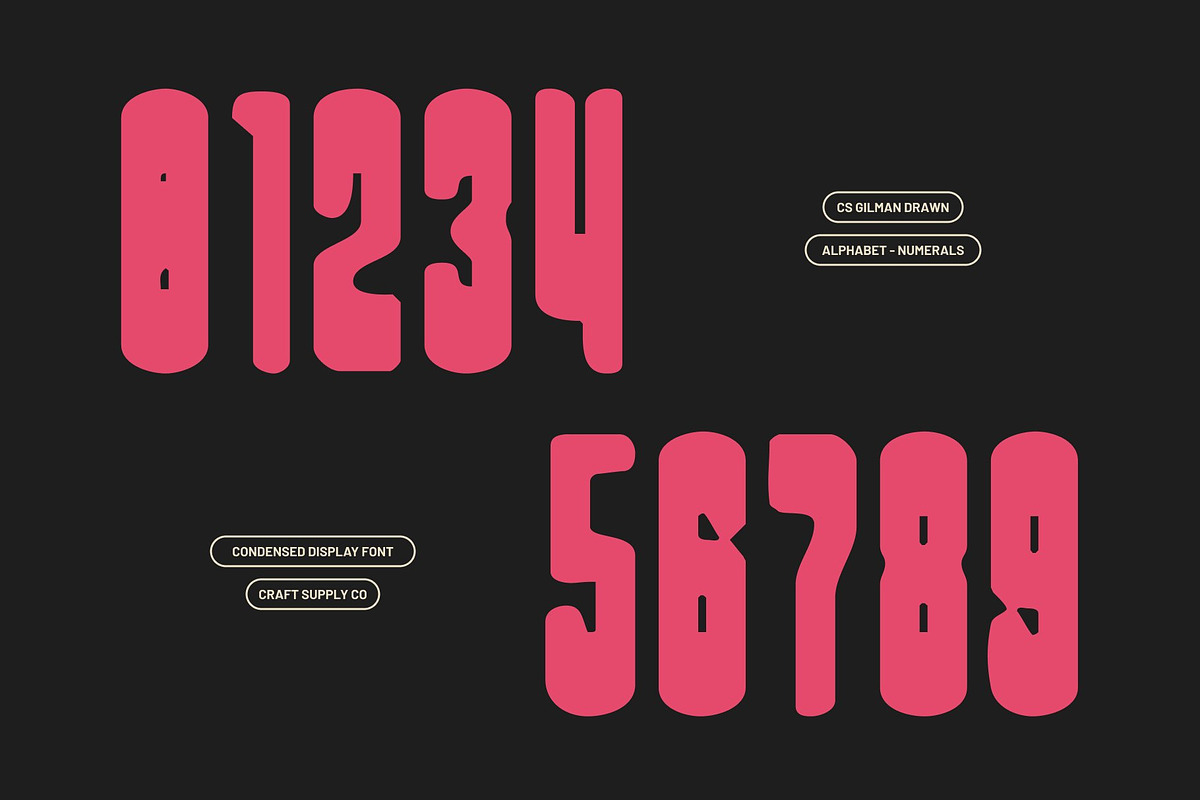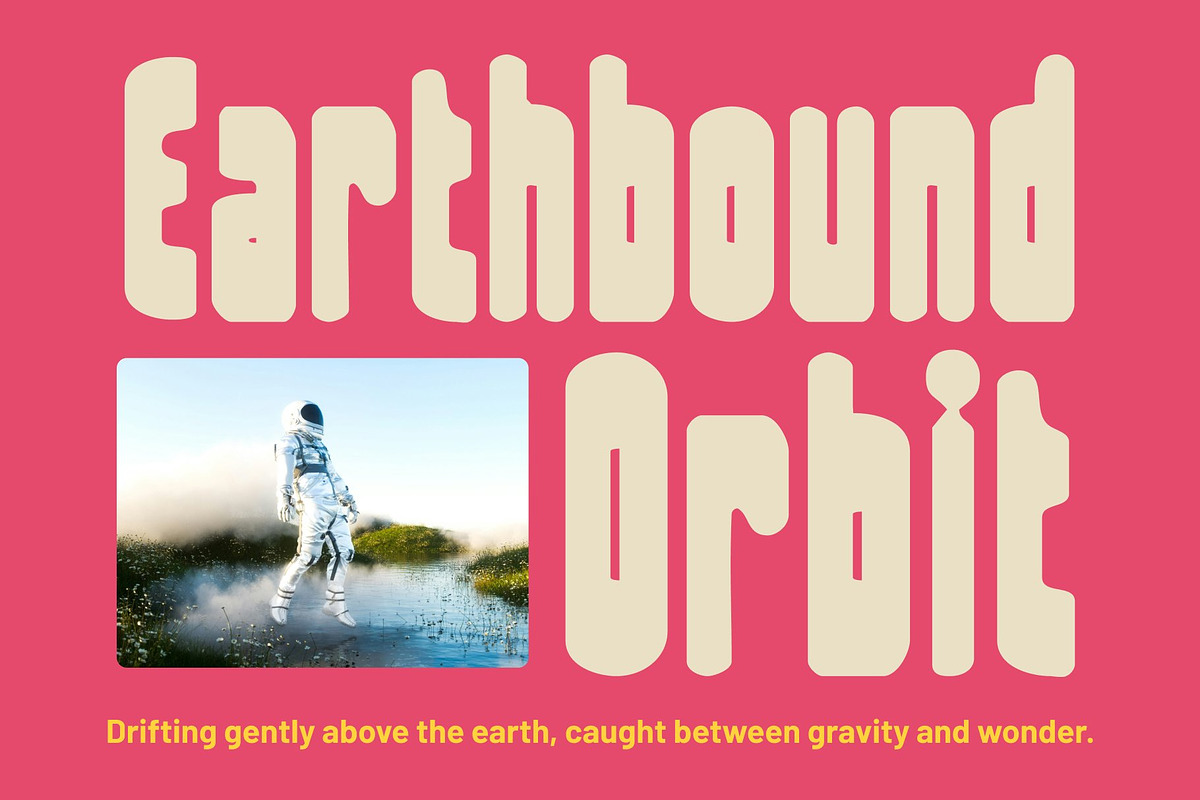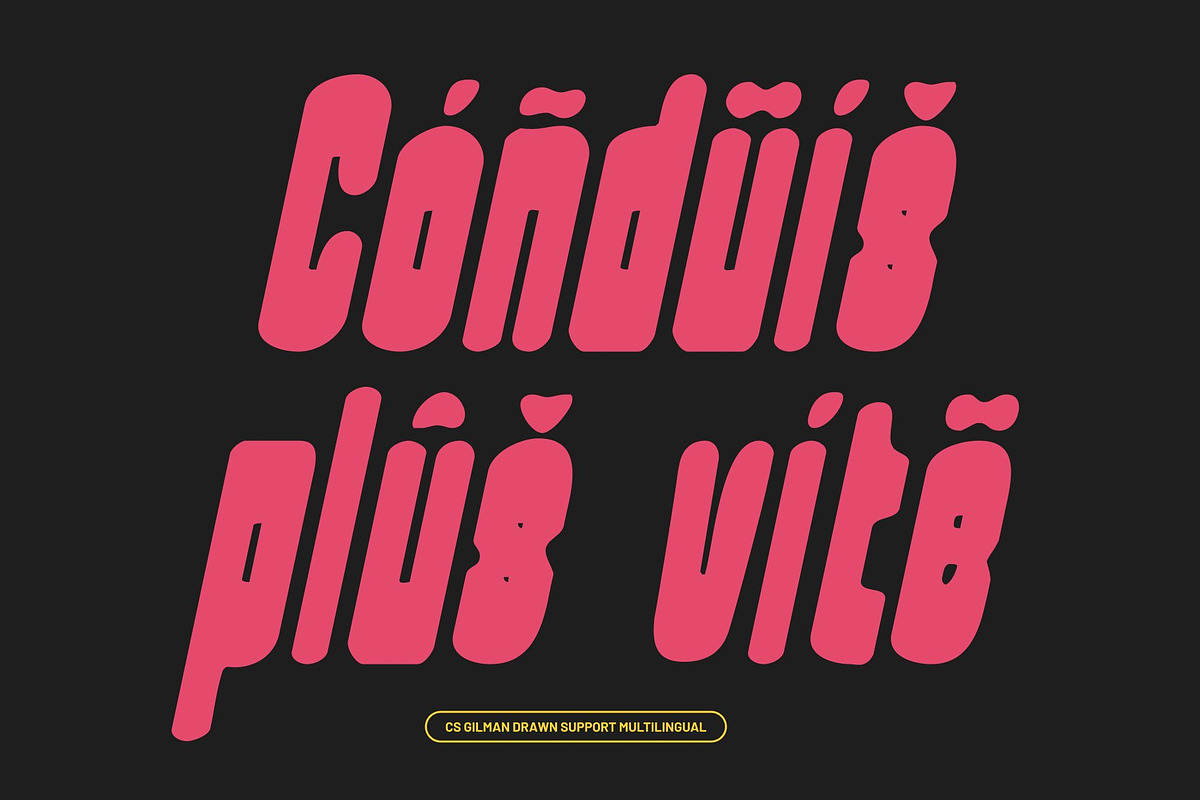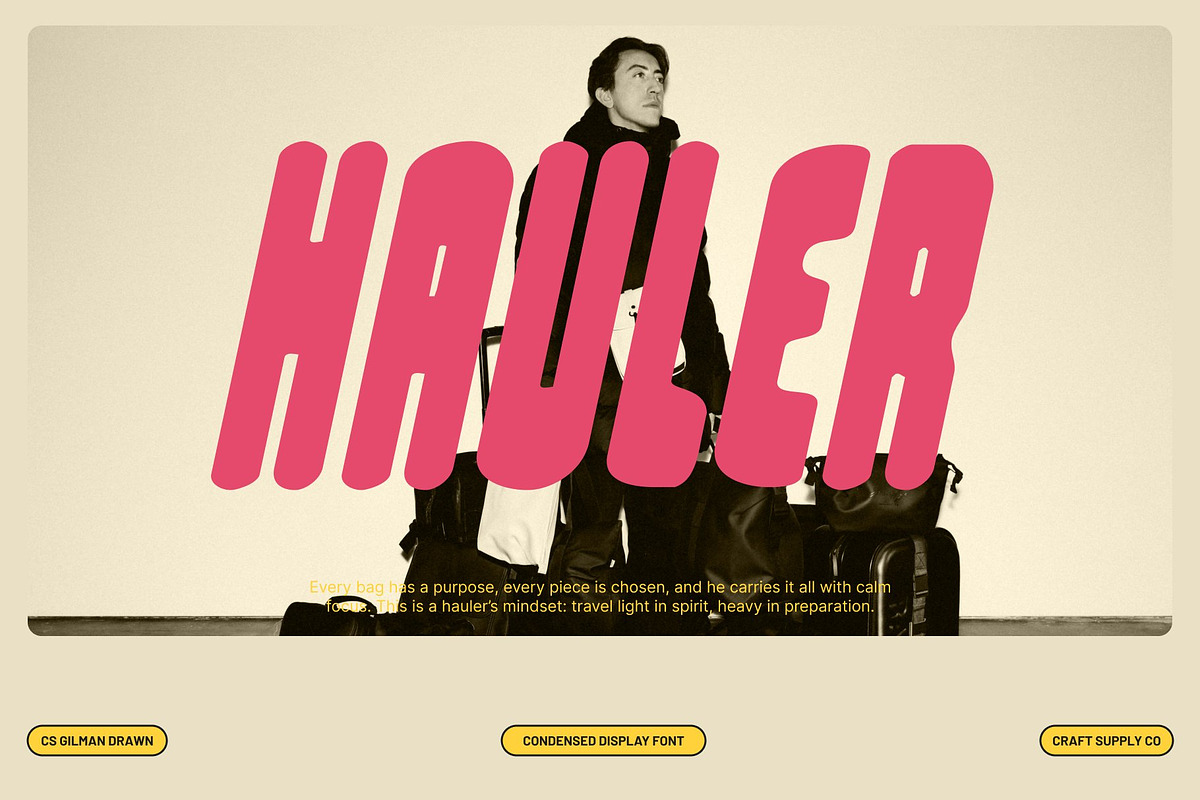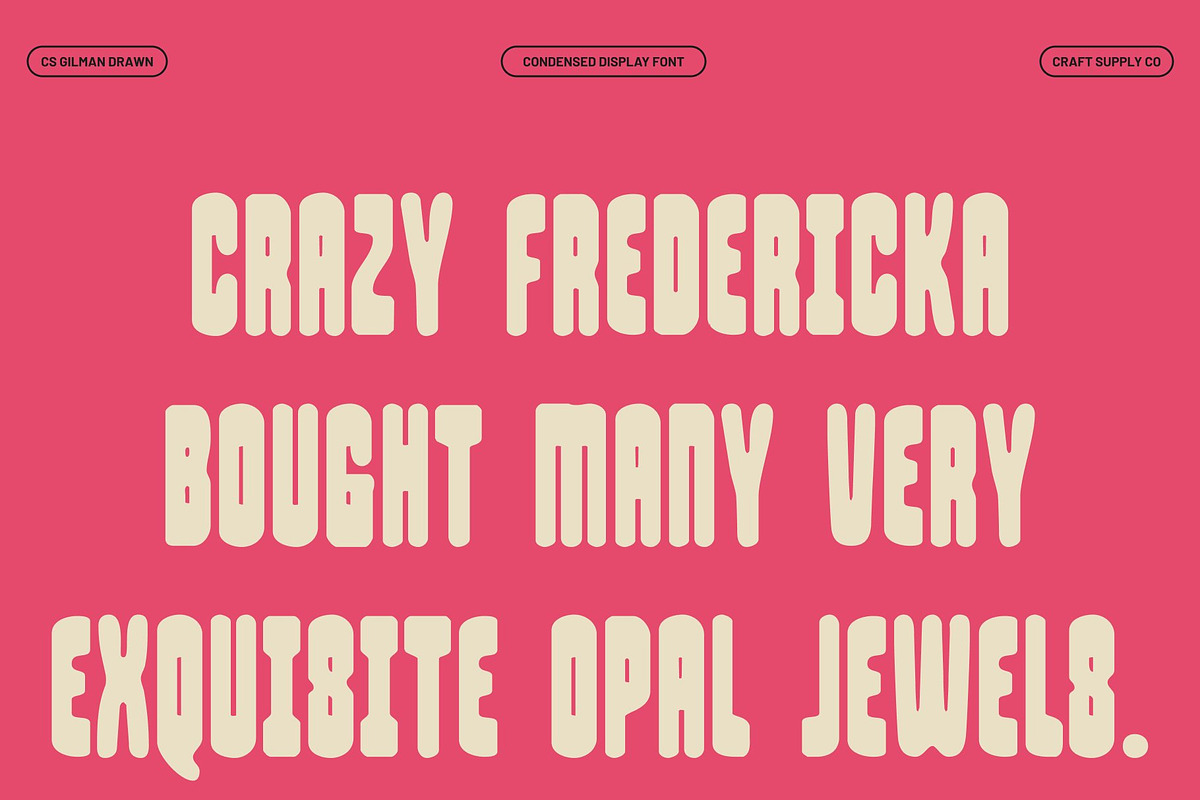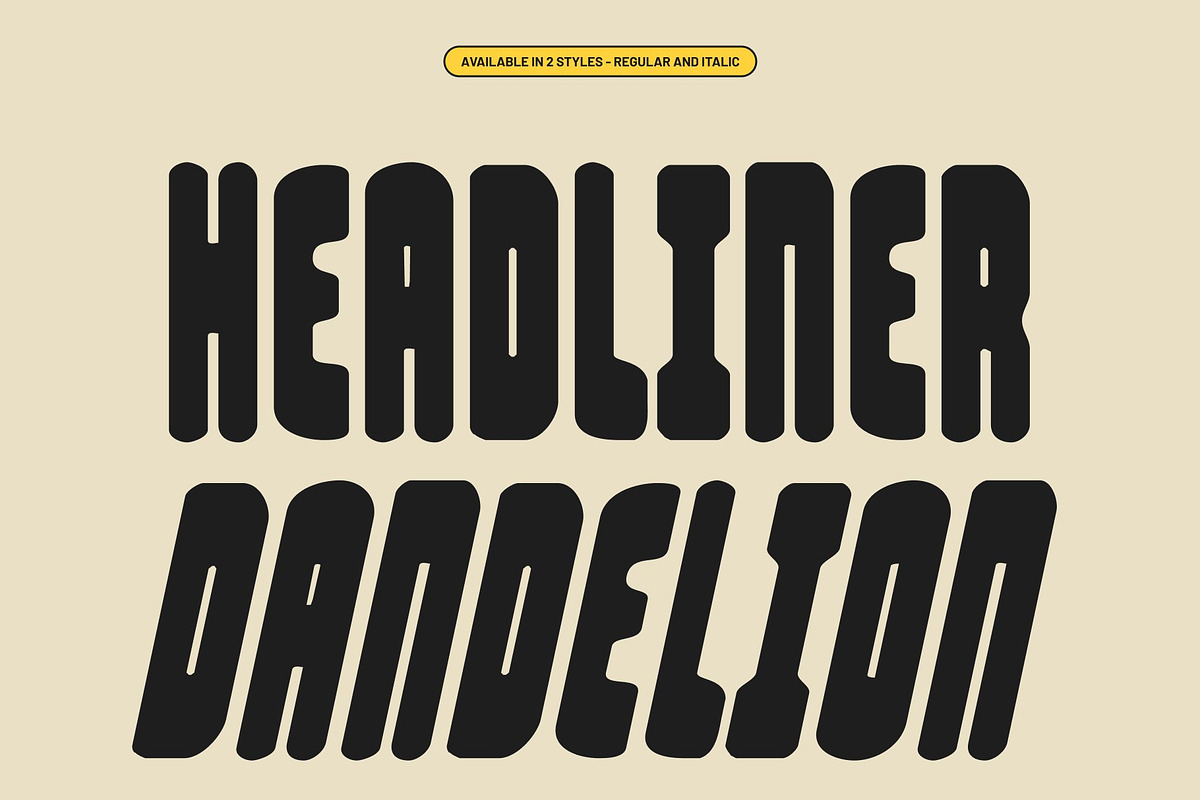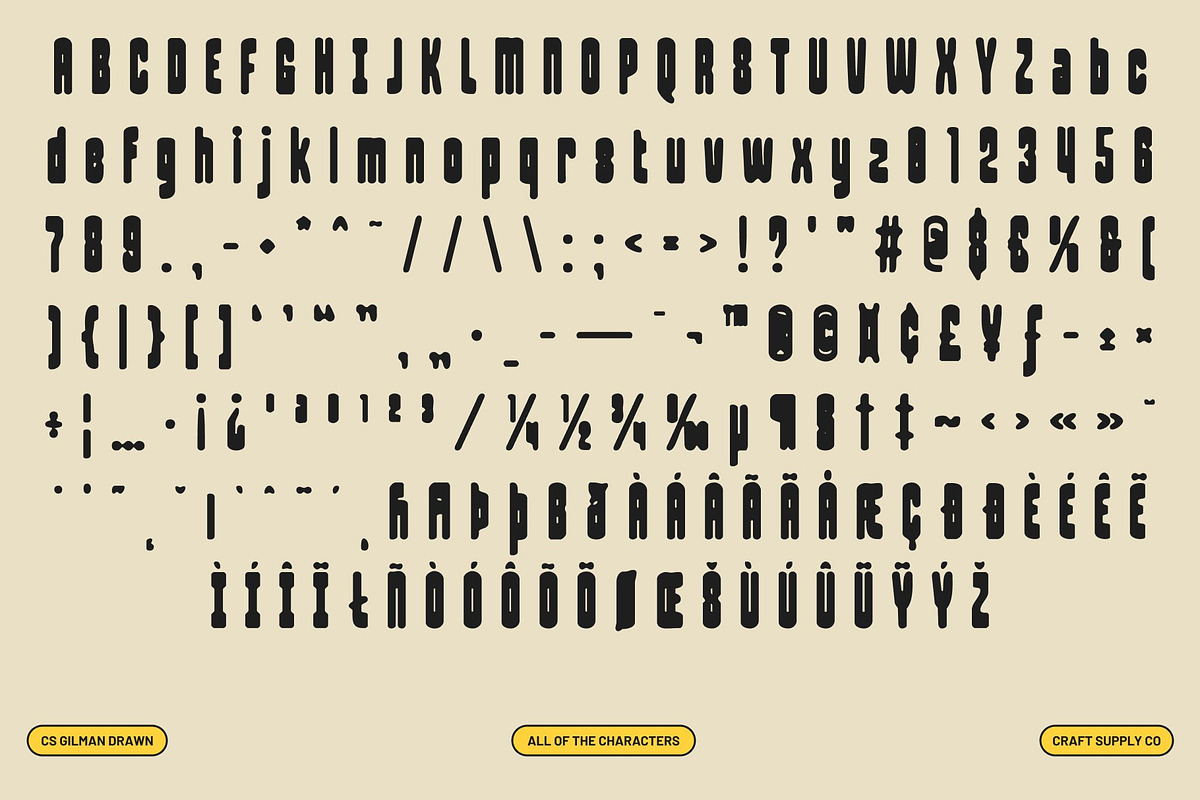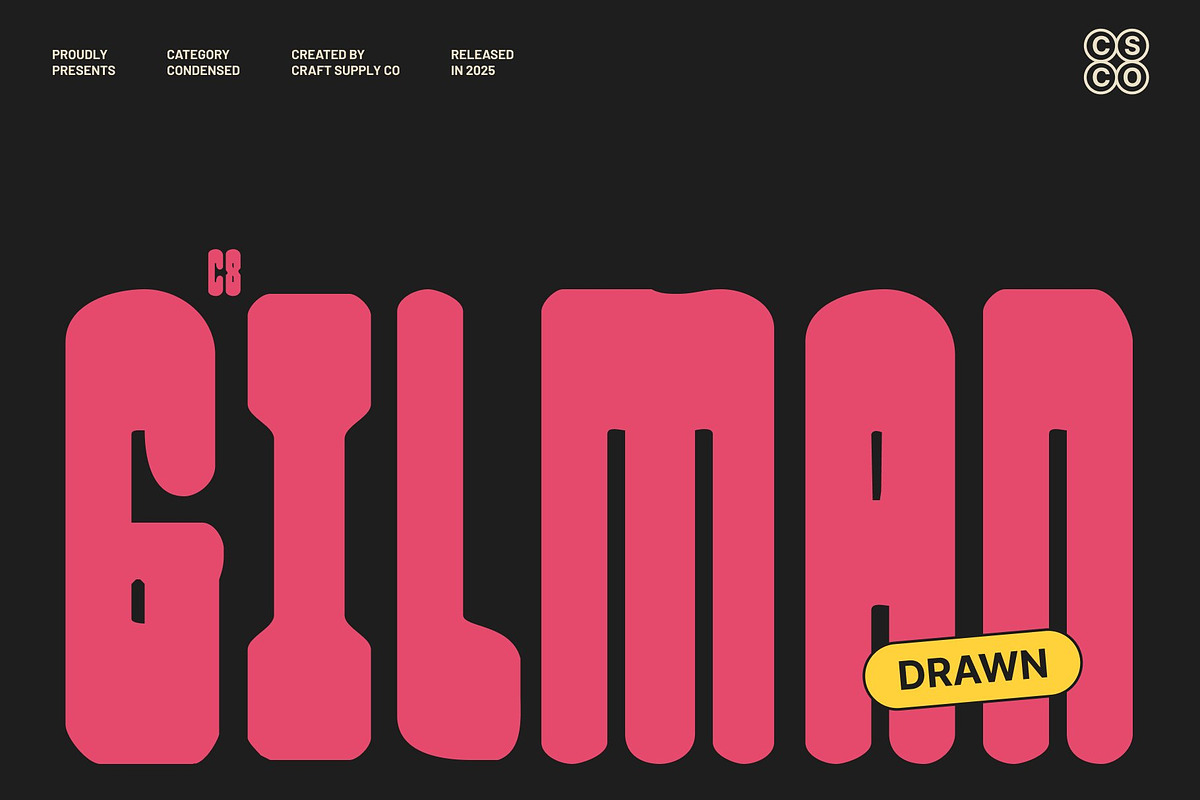
CS Gilman Drawn
CS Gilman Drawn – Bold Font: Retro Funk Meets Friendly Power
Condensed Form with Eye-Catching Presence This is a bold display font with a condensed structure crafted to maximize visual impact. Its narrow, confident letterforms create a strong presence in tight spaces, making it ideal for headlines, posters, and branding that demands attention.
Edges for a Friendly, Funky Feel The subtle rounded edges of soften its bold appearance, giving the font a friendly, approachable personality. These playful curves add a retro, funky character reminiscent of 90s pop culture and nostalgic graphic styles. The hand-drawn effect amplifies this charm, creating a typeface that feels both expressive and welcoming, perfect for projects that seek to combine strength with fun.
Retro Aesthetic with a Modern Twist This font a bridges retro inspiration with contemporary design sensibilities. Its vintage vibe evokes funk and groove aesthetics while clean, modern proportions ensure versatility in today’s creative projects. This combination makes it ideal for music posters, youth-focused branding, editorial layouts, or any design needing a bold yet stylish statement.
Perfect for Nostalgic and Creative Designs Whether reviving the energy of old-school dance flyers or creating vibrant, modern branding, delivers personality and impact. Its condensed bold style, playful curves, and hand-drawn texture provide a unique blend of retro flair and contemporary strength, making it a versatile choice for designers seeking charm, confidence, and creativity in one typeface.
- CS Gilman Drawn Regular
- CS Gilman Drawn Italic